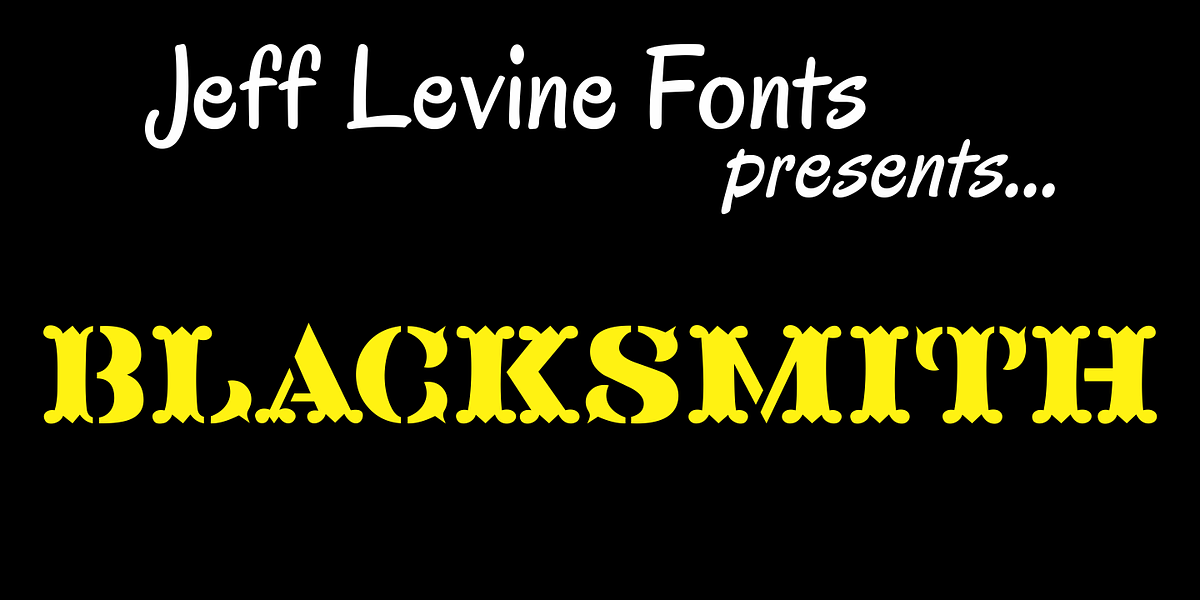
Blacksmith JNL
What started as an image of a single vintage brass stencil of the letter ‘P’ spotted in an online auction has turned into Blacksmith JNL. From that single letter Jeff Levine has created a complete Western stencil font, retaining the hand-made look of the original stencil piece.